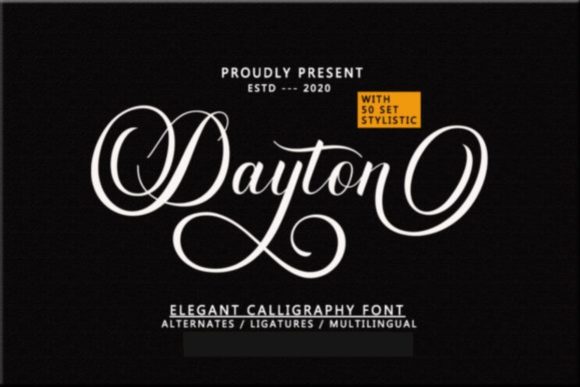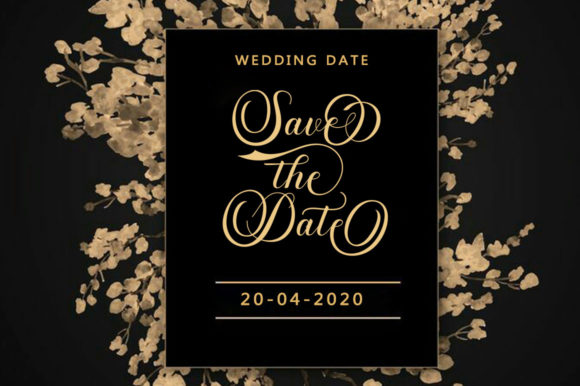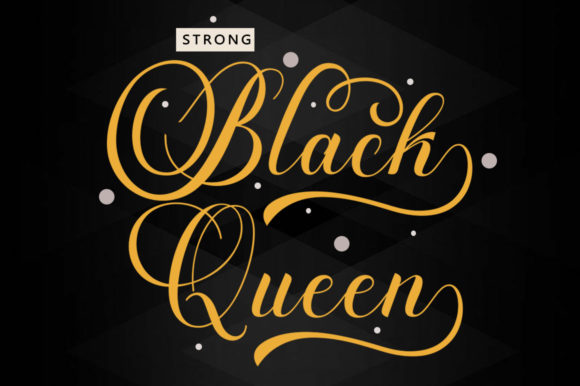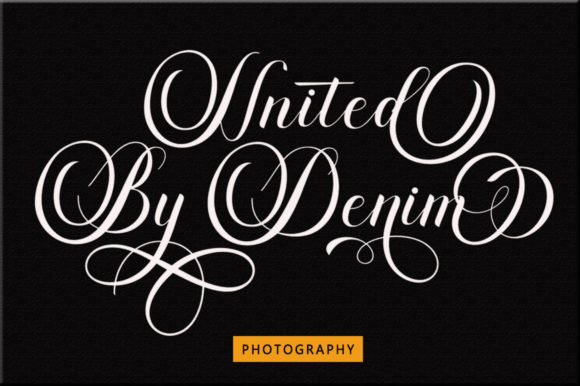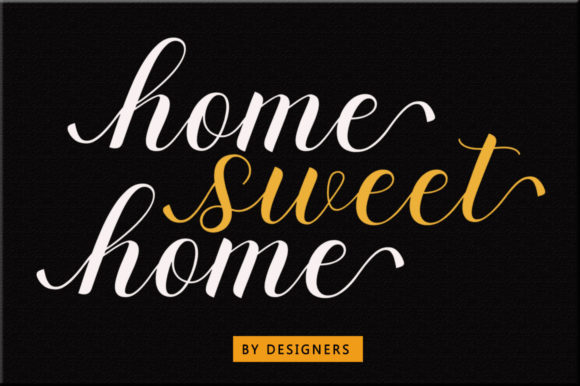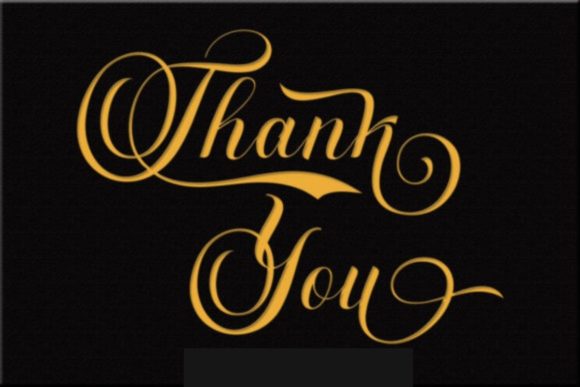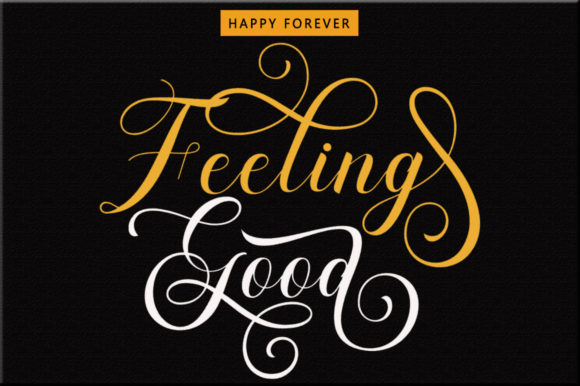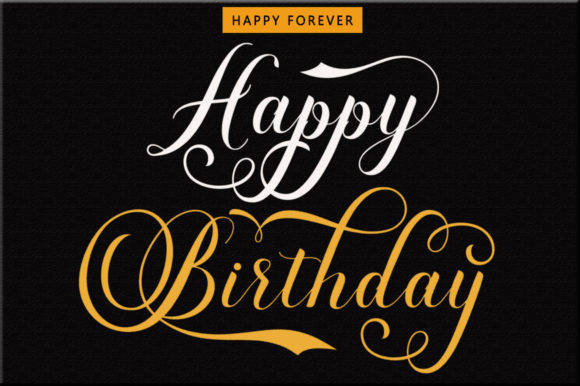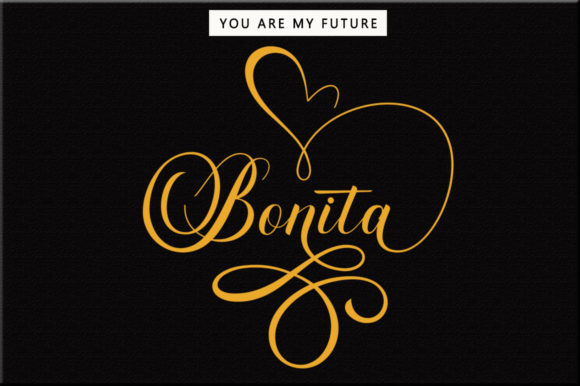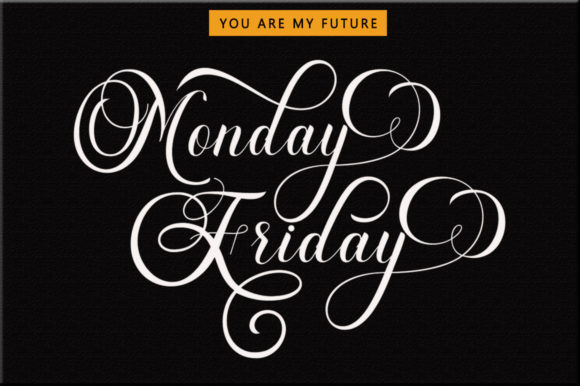
Dayton Script Font
About Dayton Script Font
Introducing “Dayton,” an incredibly elegant and gracefully flowing handwritten font that exudes sophistication and charm. Its stunning beauty makes it a perfect fit for a wide range of design projects, adding a touch of handcrafted elegance to every creation. Prepare to be captivated by its flowing and well-balanced characters, and watch as it elevates your designs to new levels of elegance and allure, making them truly stunning for occasions such as wedding invitations, thank you cards, quotes, greeting cards, logos, business cards, and every other design that craves a beautiful handwritten touch.
With “Dayton,” you have a font that flows with effortless beauty. Its varying baseline and smooth lines create a sense of fluidity and movement, adding a touch of magic to your designs. Whether you’re working on wedding invitations, branding materials, or social media graphics, this font adds an air of sophistication that leaves a lasting impression.
The versatility of “Dayton” allows it to seamlessly complement different design styles and themes. From classic and timeless to modern and chic, this font adapts effortlessly to your creative vision, making it a reliable choice for all your projects.
Unleash your creativity and watch how “Dayton” enhances your designs with its elegant and handwritten touch. Whether you’re crafting heartfelt quotes, creating elegant logos, or designing personalized stationery, this font will bring a sense of beauty and authenticity that captivates your audience.
So, immerse yourself in the elegance of “Dayton” and let it become your creative companion. Allow its flowing and graceful style to inspire your designs, turning them into gorgeous works of art. Whether you’re a seasoned designer or a passionate enthusiast, “Dayton” empowers you to create visuals that stand out and make a statement. Let “Dayton” be the key to unlocking the beauty and elegance in your designs, and watch as it takes your projects to new heights of refinement and excellence!